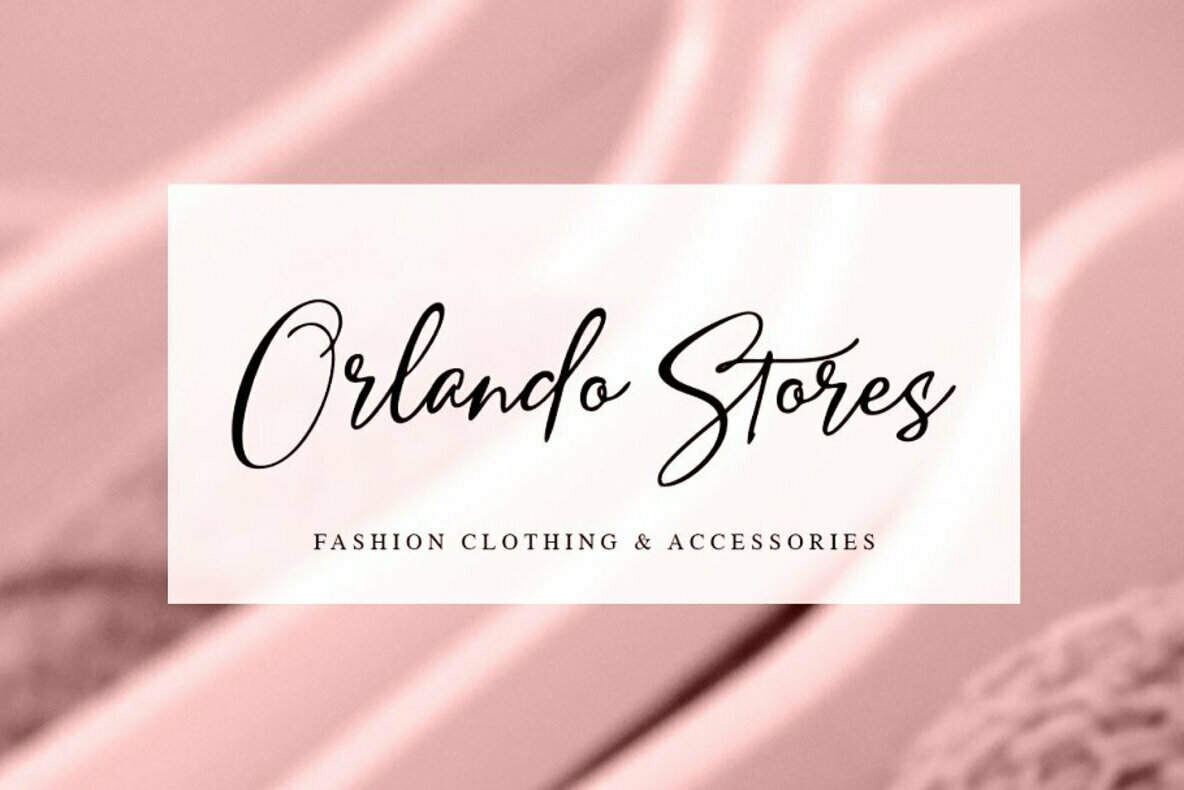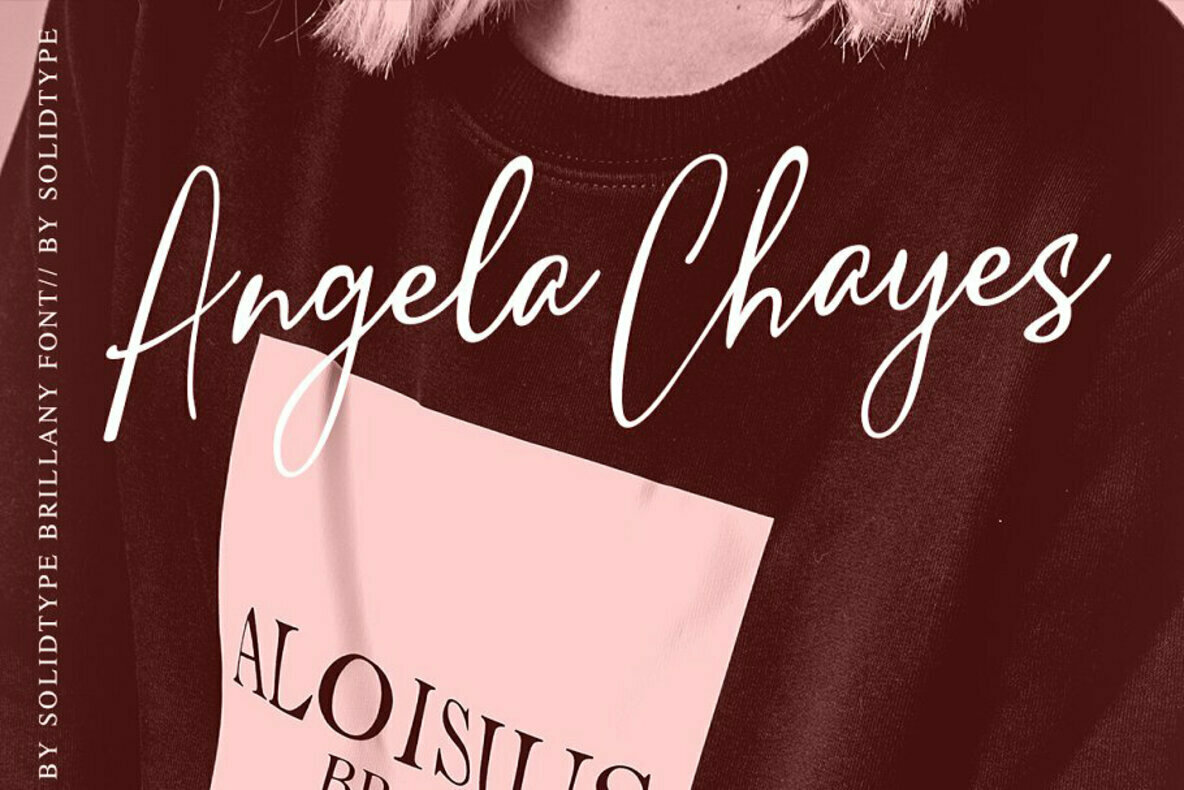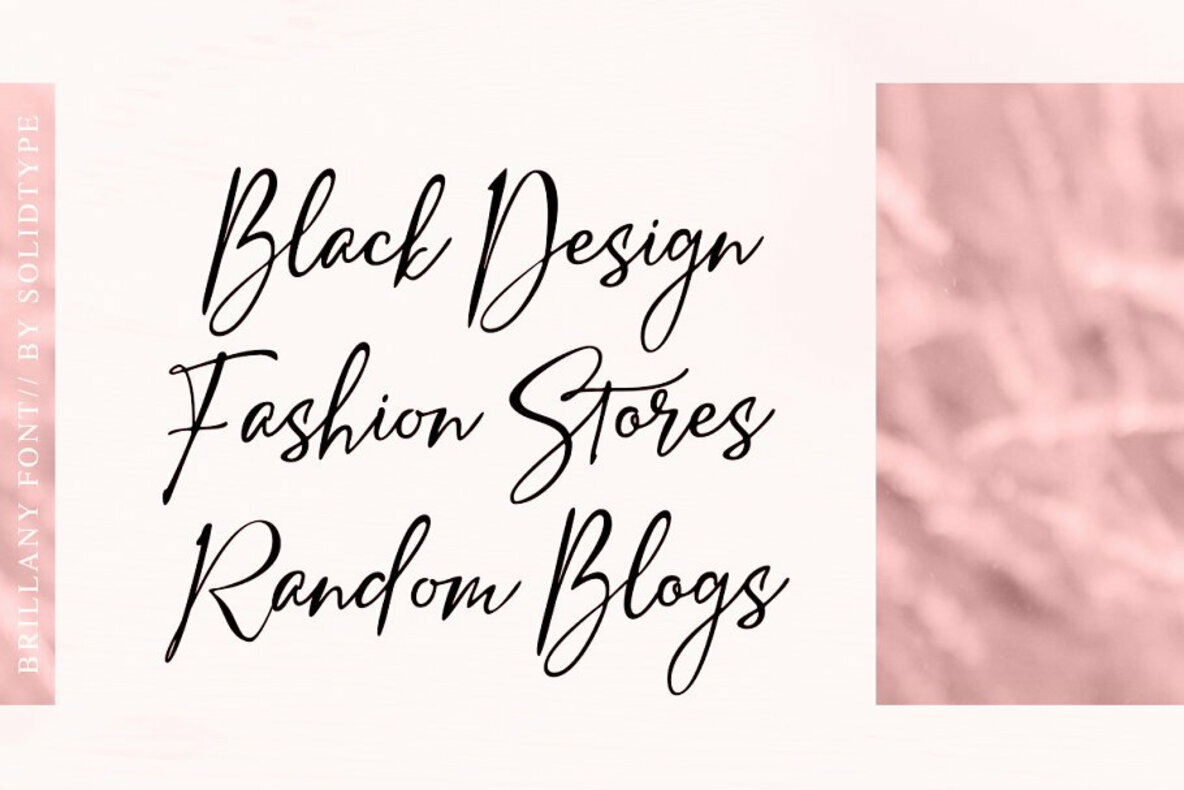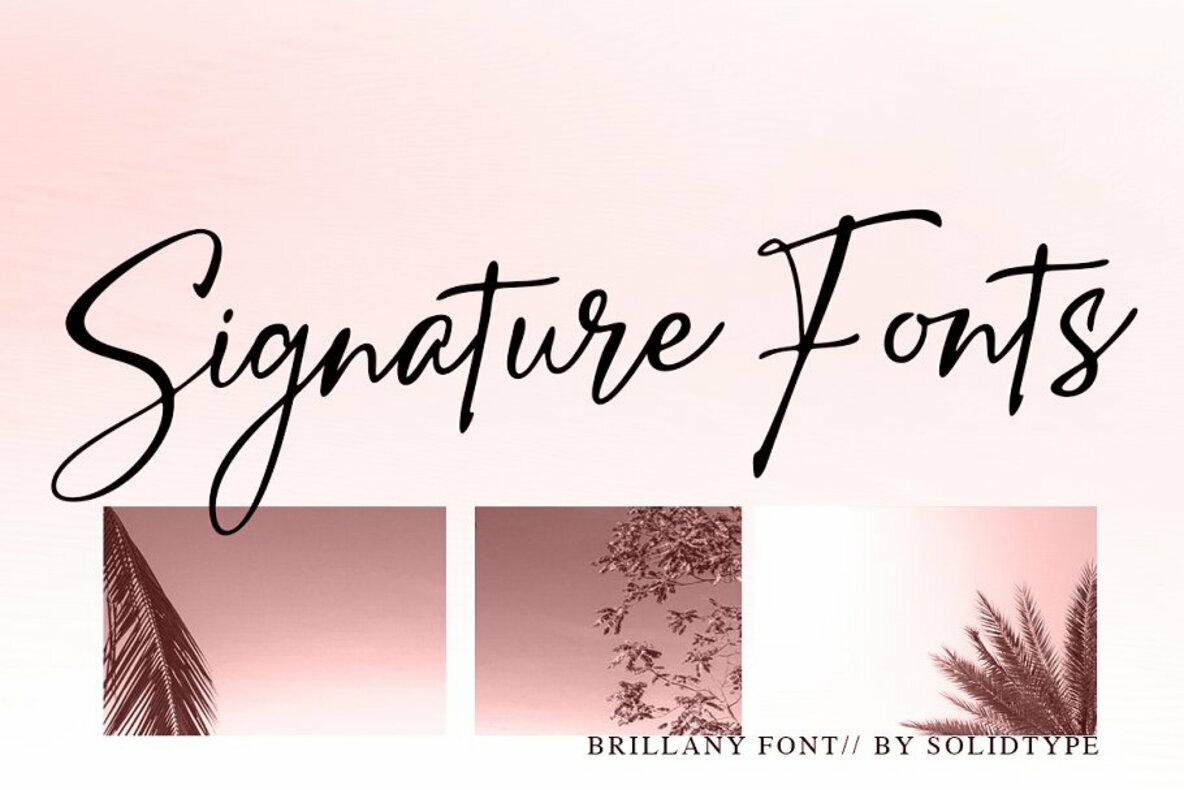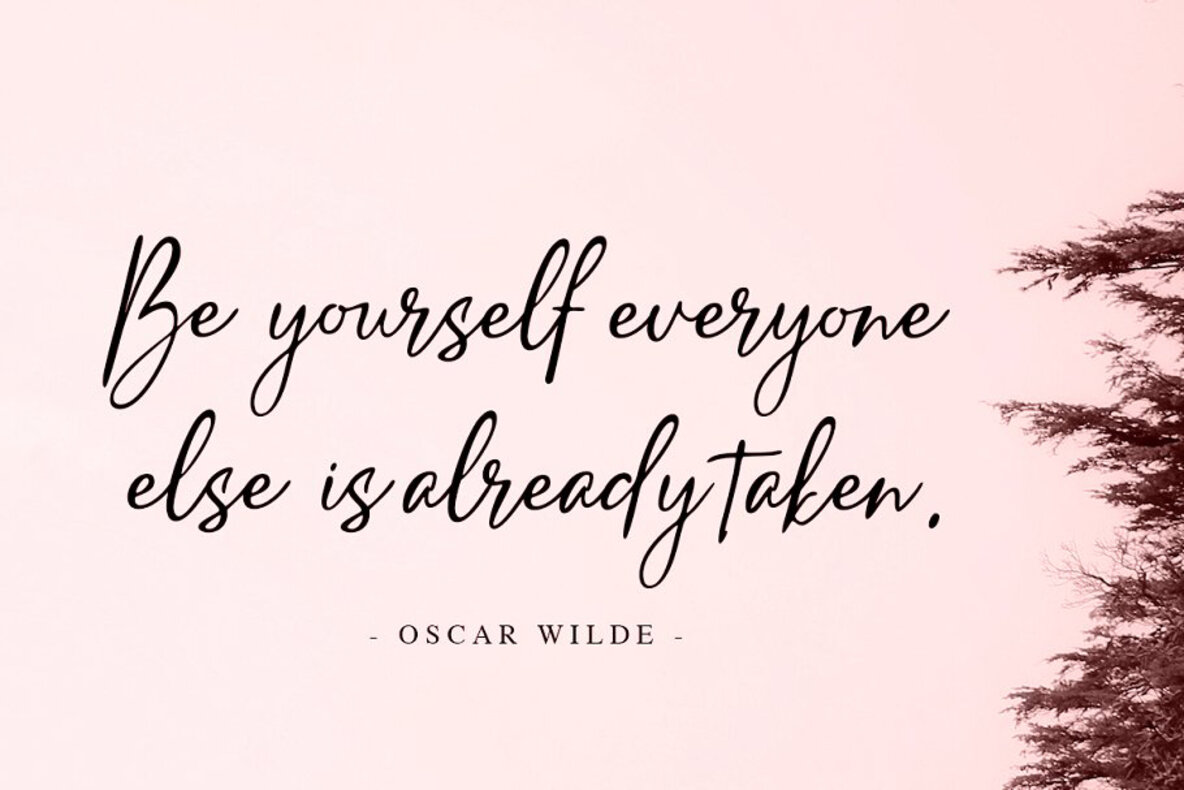
Brillany Font
Brillany
Brillany, crafted by Solidtype Studio, presents a charming blend of simplicity and style. This handwritten script font captures modern elegance, offering both readability and visual appeal for a variety of projects. Whether used as a headline or within body text, Brillany maintains its sophistication, making it ideal for blogging, social media branding, wedding invitations, and personal cards.Brillany: The Elegant Handwritten Script